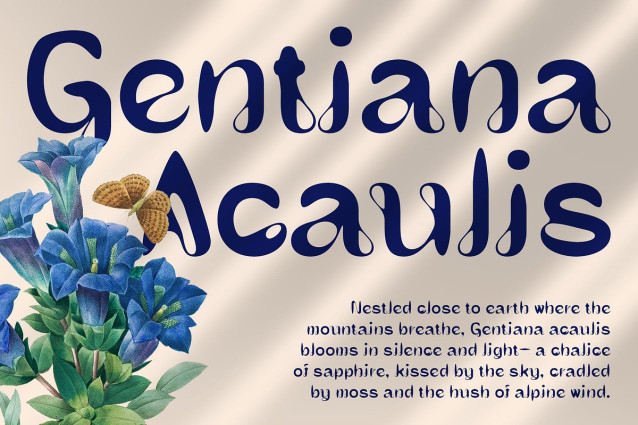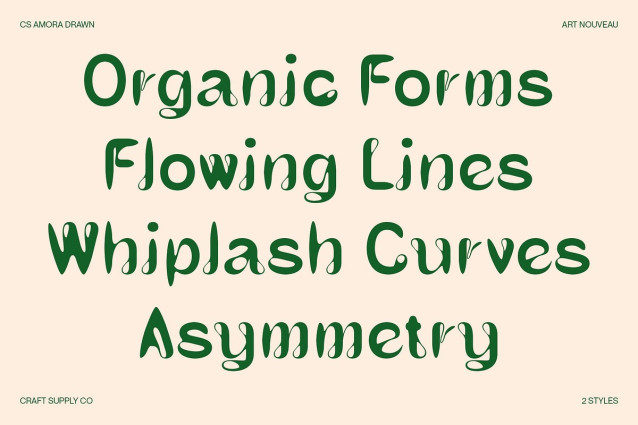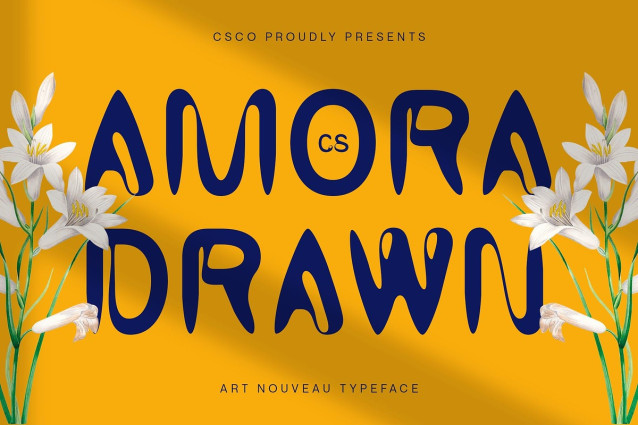
CS Amora Drawn Font
CS Amora Drawn Font – This is a modern sans-serif font that merges the ornamental charm of Art Nouveau with the clarity and simplicity of contemporary design. Its graceful curves and flowing shapes evoke classic elegance, while its clean, sans-serif structure keeps it fresh, minimal, and stylish.
Hand-Drawn Effect for Artistic Warmth What sets this contemporary font apart is its subtle drawn effect—adding a hand-crafted, organic feel to each character. This gives the font a soft, expressive personality that enhances its aesthetic appeal and brings a sense of intimacy and human touch to digital typography.
Elegant Yet Expressive Character Balancing refined proportions with artistic softness, this font offers a distinct personality that feels luxurious without being rigid. It’s ideal for delivering messages with poise and charm while maintaining a creative edge, perfect for designers looking for beauty with depth.
Perfect for Branding, Editorials, and Creative Projects Whether used for elegant branding, fashion magazines, packaging design, or wedding invitations, this artistic beauty font brings sophistication and warmth to every visual composition. Its unique blend of classic inspiration and modern execution makes it a versatile choice for projects that value artistry, femininity, and subtle expression.